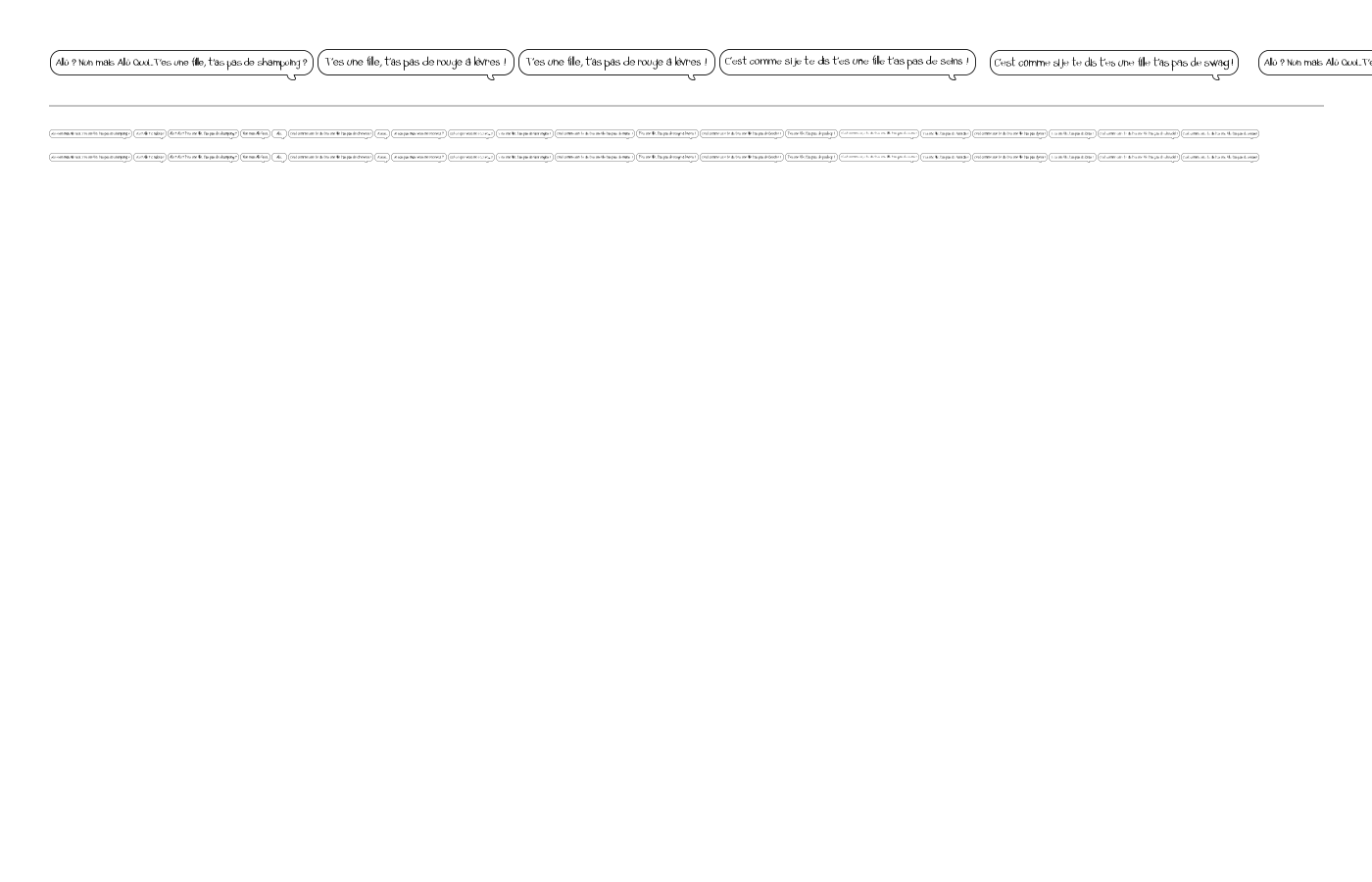
Allo t'as pas de shampoing is a playful, rounded script-style font that mimics casual handwriting with a friendly and informal vibe. Its smooth, slightly irregular strokes and generous spacing create a relaxed and approachable look, making it perfect for fun, youthful branding, informal invitations, or creative social media graphics. This font works well wherever a warm, personal touch is needed without sacrificing readability.
Allo t'as pas de shampoing Font
About Allo t'as pas de shampoing Font
| Font family | Allo t'as pas de shampoing Font |
| Designer | M.K.V |